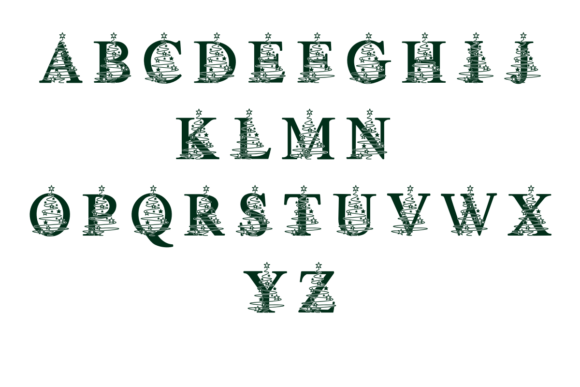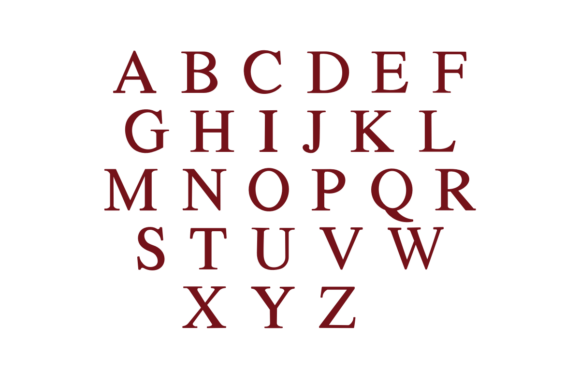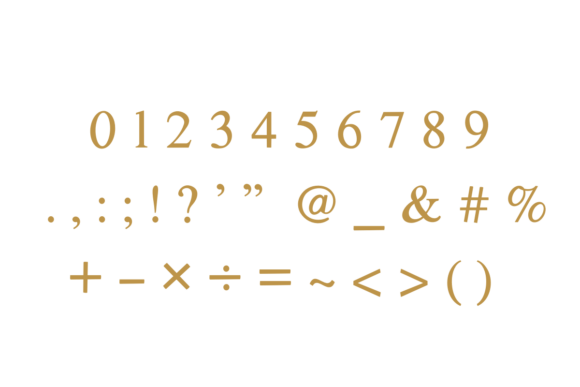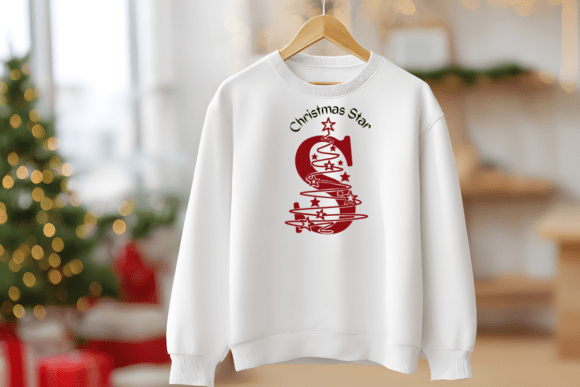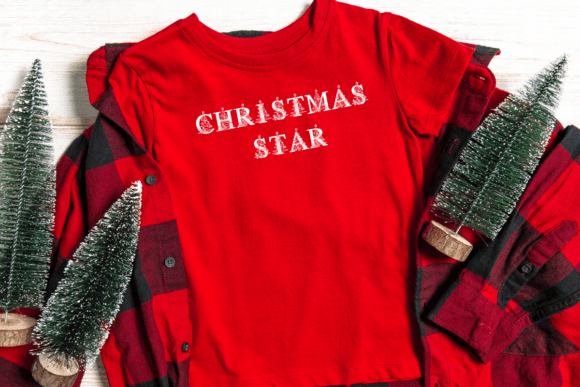
Introduction to Christmas Magic Star Font
As you sit down to start your holiday craft project, you’re faced with a blank canvas and a spark of creativity. You’ve got visions of garlands, gift tags, and festive banners dancing in your head. But what’s missing is that perfect design element to elevate your project from ordinary to extraordinary. That’s where the Christmas Magic Star Font comes in – a game-changing decorative typeface that brings a touch of magic to your creative endeavors.
This exceptional font is a must-have for designers looking to add a personal touch to their holiday projects. With its unique blend of classic block letters and spiraling Christmas tree designs, the Christmas Magic Star Font is a versatile design resource that can be used for a wide range of applications, from custom apparel to event branding.
Key Features of Christmas Magic Star Font
- Unique, hand-drawn design perfect for creative projects and festive designs.
- Transparent background, making it easy to layer over any image or design element.
- Perfect for holiday cards, gift tags, and other design elements that require a touch of Christmas magic.
Honest Review: Christmas Magic Star Font
As a designer, I was excited to dive into the Christmas Magic Star Font for my latest creative project. The moment I downloaded the font, I knew I was in for a treat. ✨ The high-quality design and intricate details are a perfect fit for any winter-themed project.
- High-quality design: The level of detail and craftsmanship that went into creating this font is impressive, and it shows in the final product.
While the Christmas Magic Star Font is an excellent addition to any design resource library, there are a few limitations to consider. ⚠️ The font is primarily designed for winter-themed projects, so it may not be as versatile as some other fonts. Additionally, some users may find the intricate details to be overwhelming or difficult to read in certain contexts.
Overall, I’m impressed with the Christmas Magic Star Font and would definitely recommend it to designers working on winter-themed projects. With its high-quality design, transparency options, and free download, it’s a valuable resource to have in your toolkit.
Some tips for getting the most out of the Christmas Magic Star Font include experimenting with different font sizes and colors, and combining the font with other design elements to create a unique and eye-catching design. Common use cases for this font include holiday cards, gift tags, and social media graphics.